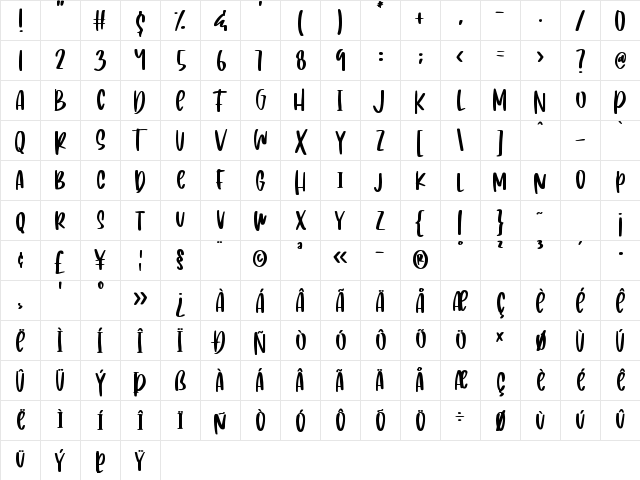
Sunday Blues Regular
Foundry: Dm Letter Studio
Designer: Dimas Prasetyo
Design Context for Sunday Blues
Sunday Blues is a composed and adaptable typeface that performs quietly and consistently across a wide range of design contexts.